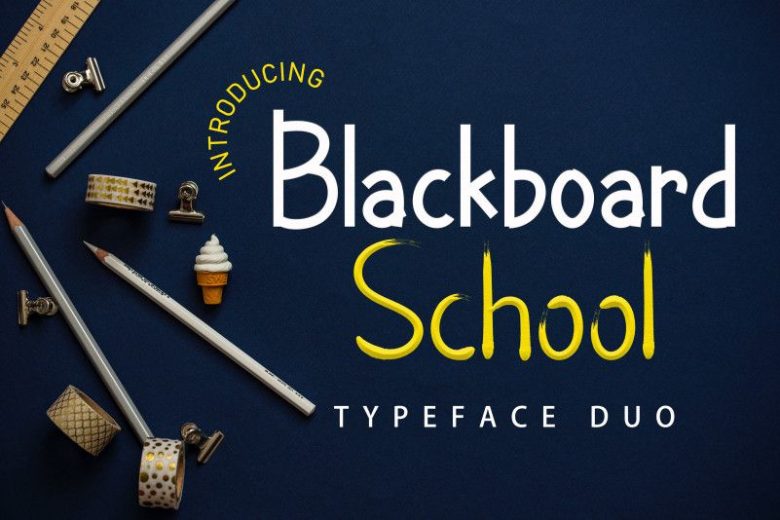
Blackboard School Font
Blackboard School Font is brand new brush font that represents funny and playful. It has 2 family fonts, regular and awesome.
Blackboard School is perfect font for any kind of your project, such as advertisements, branding, graphic design, quotes, wedding design, logo for online or offline business, photography, and others.